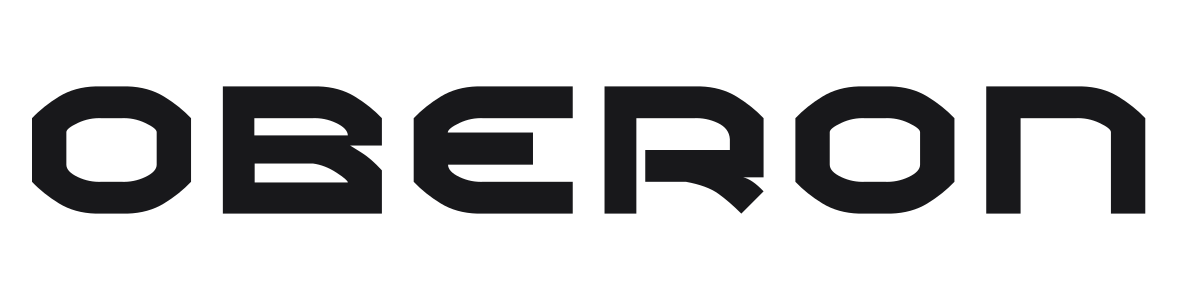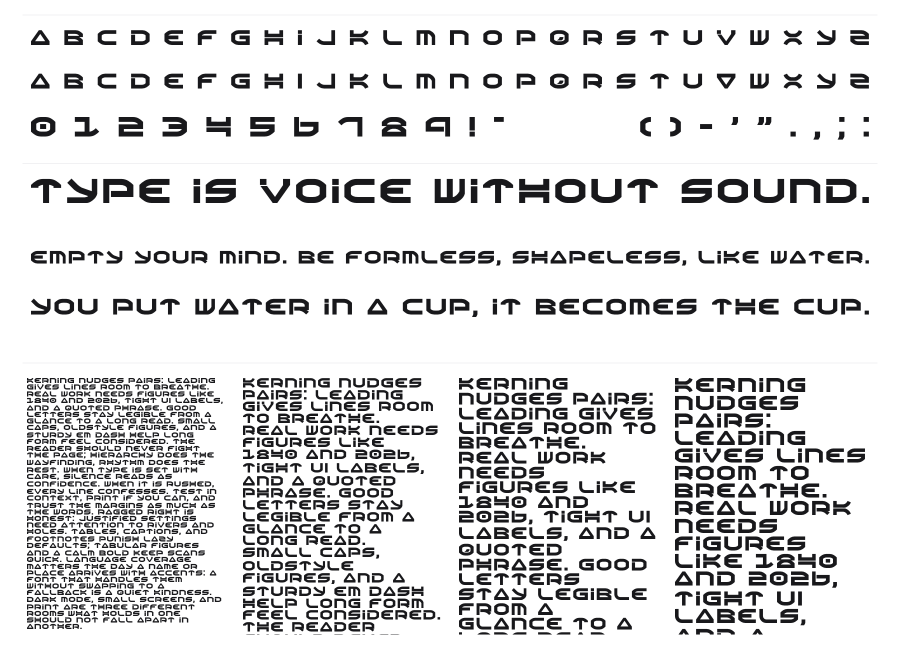
Oberon
Oberon is a bold, wide geometric techno font with a distinctly sci-fi edge. Squared proportions, flat terminals, and angular cuts in select characters give it a mechanical, almost military quality. Strong at large sizes for titles, game interfaces, and anything that needs to feel like it came from the future.